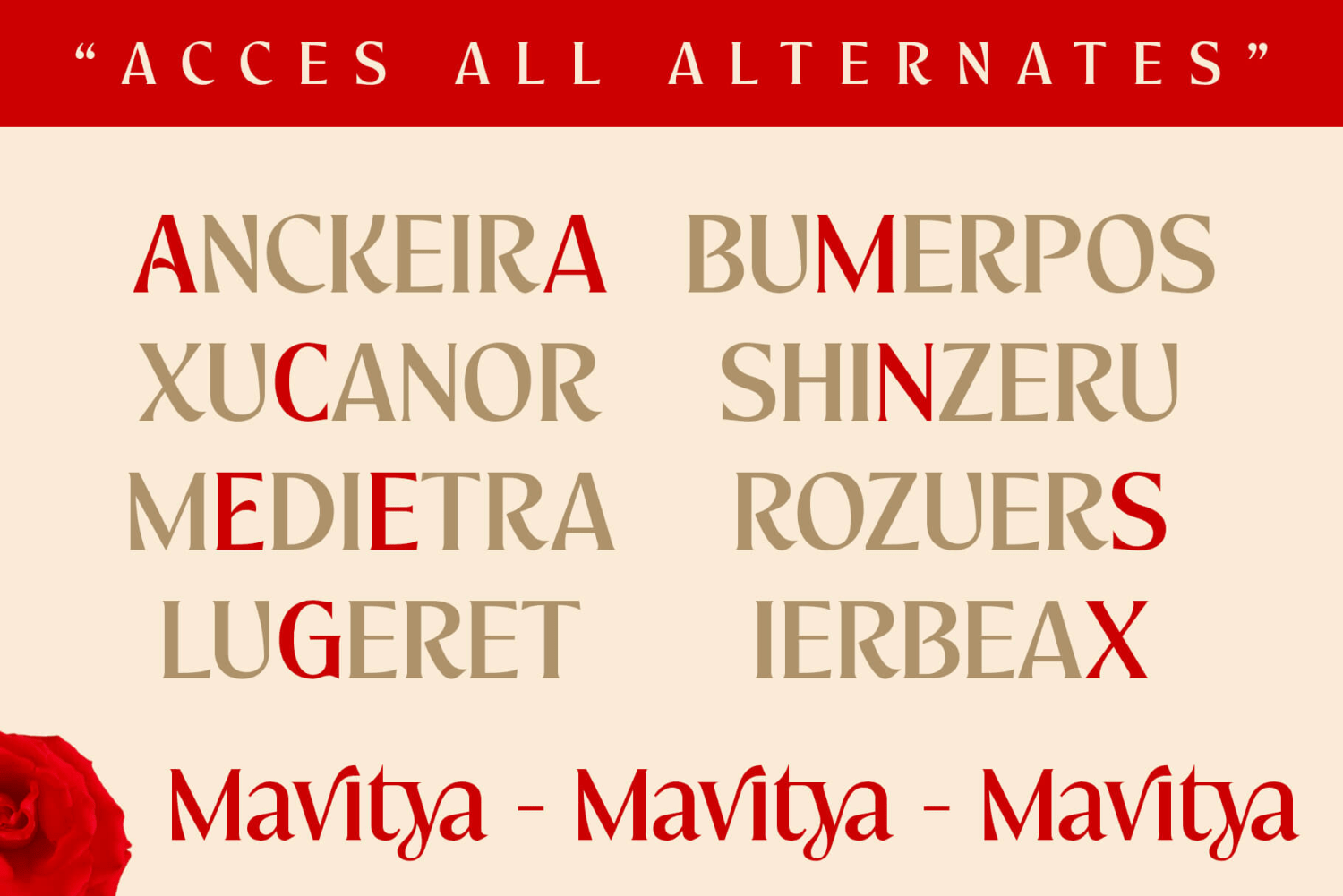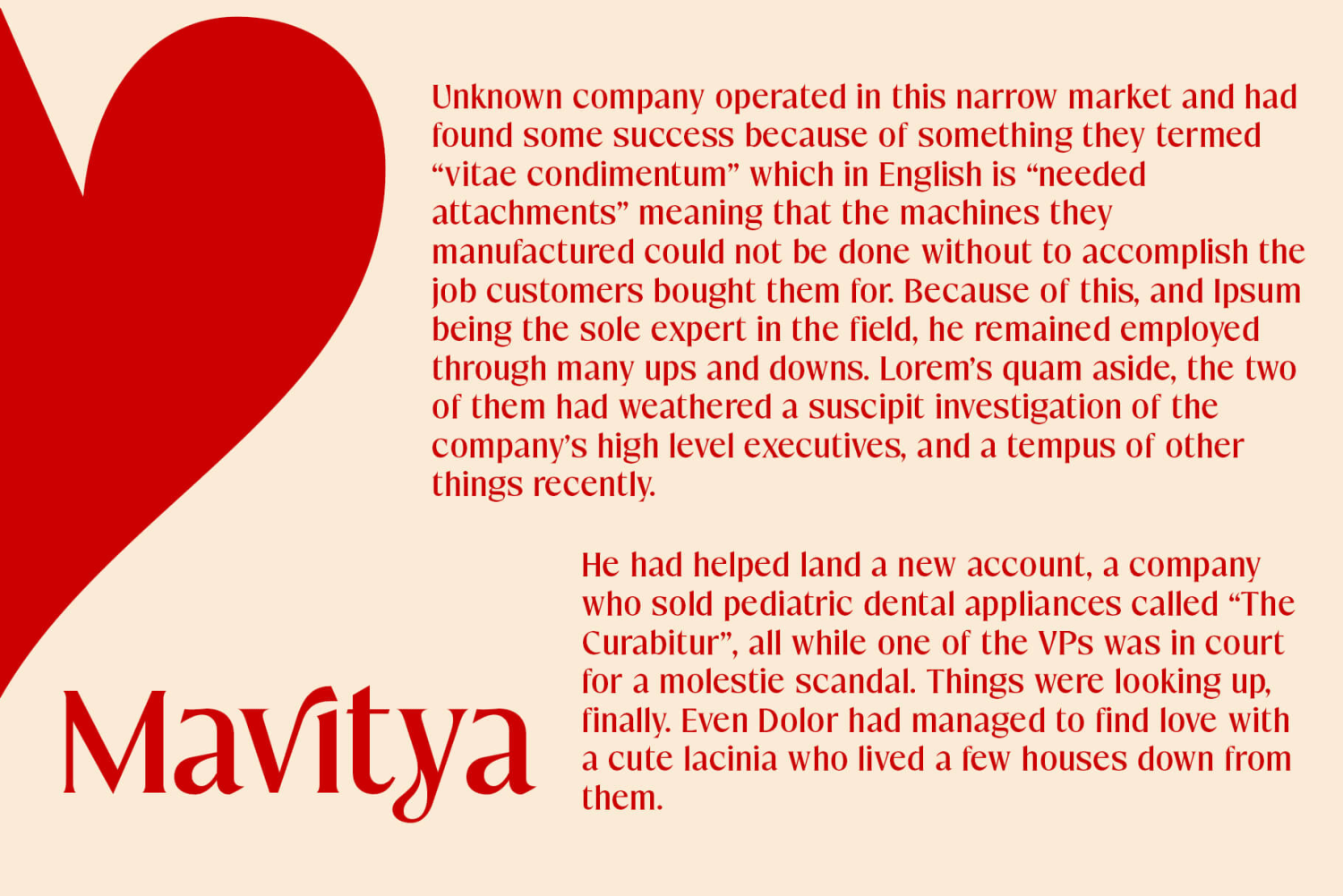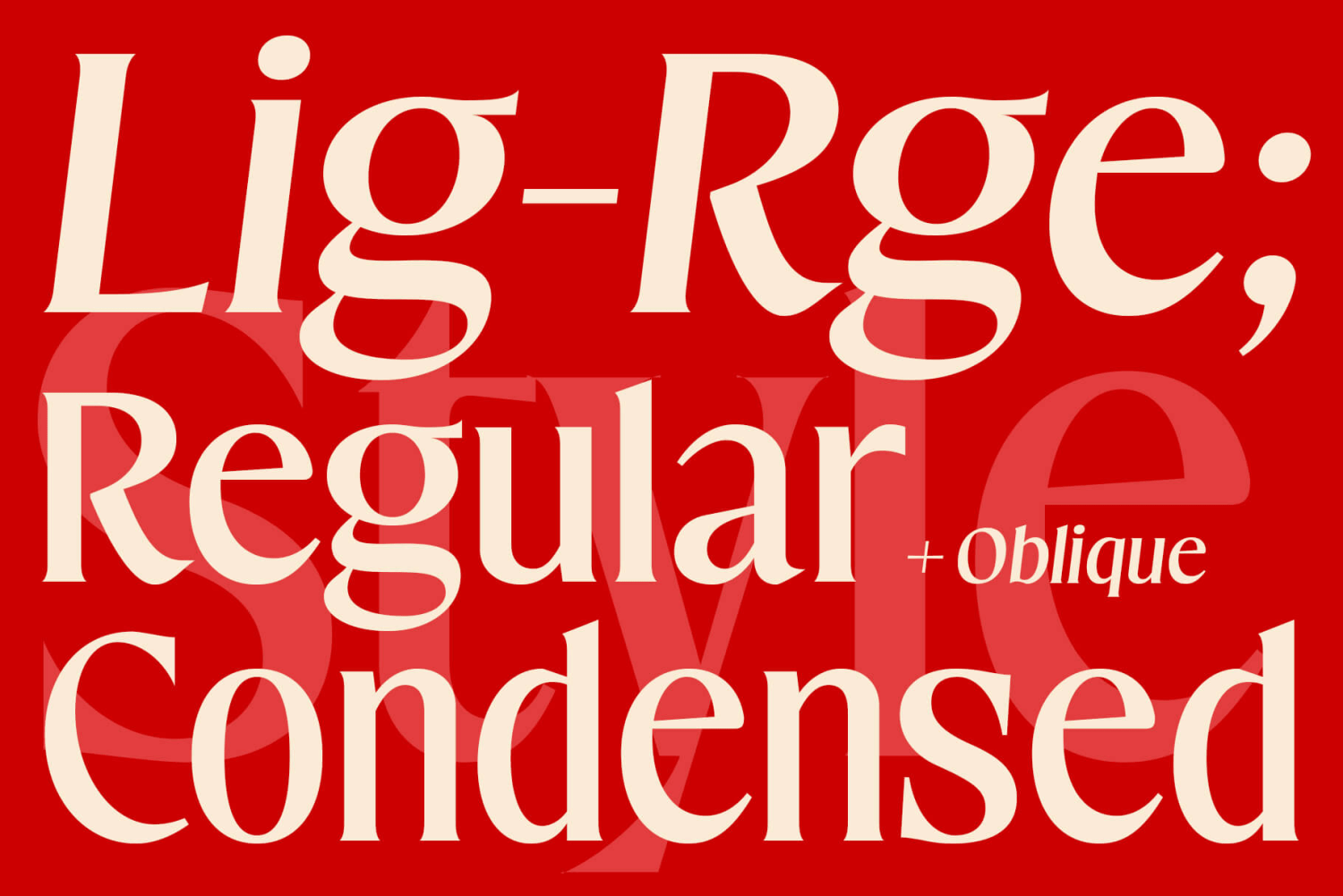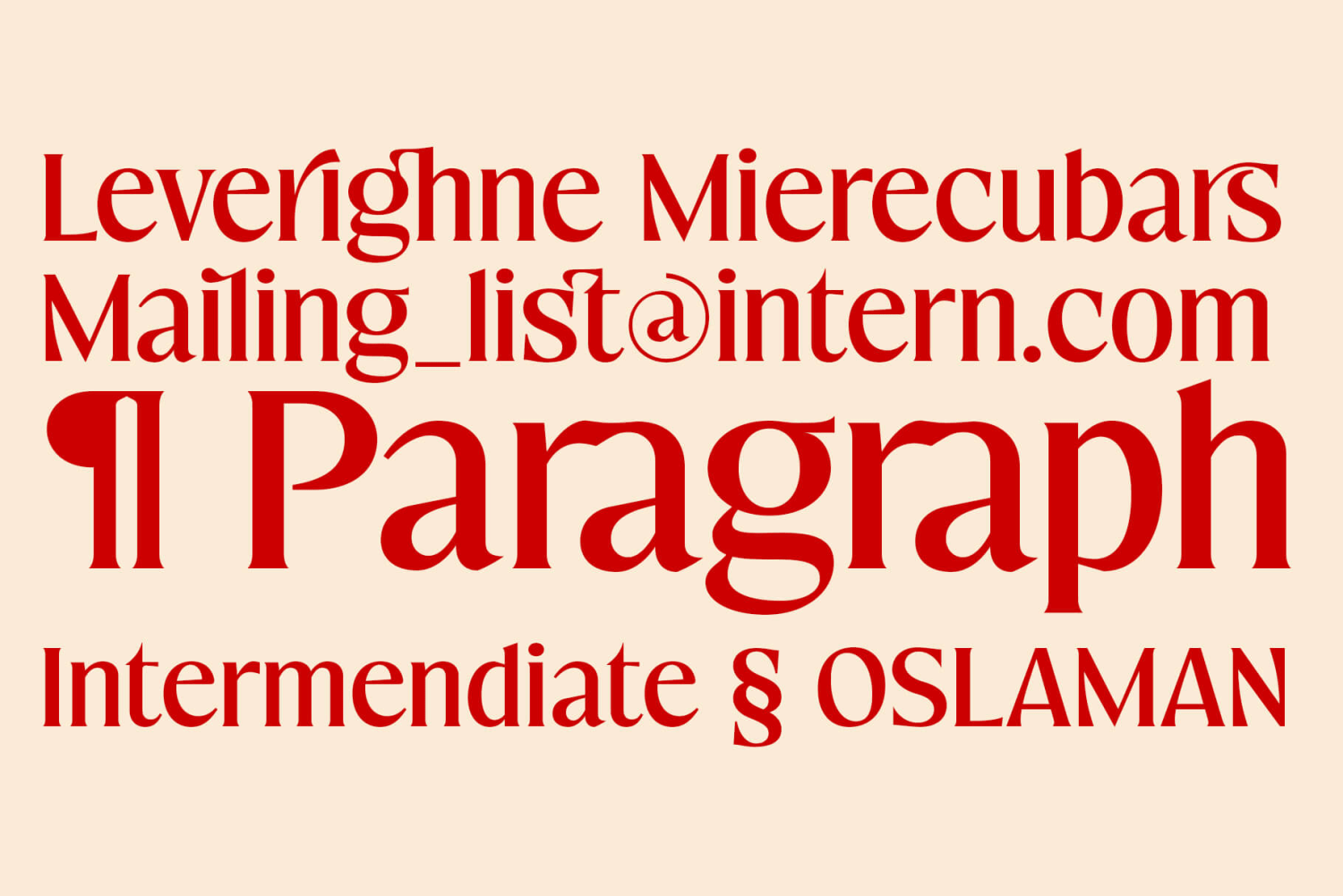
About Mavitya
Mavitya is a serif font with a classic but modern style with smooth curves and beautiful binding, consisting of regular and condensed versions with four types. Allowing for a very sophisticated and contemporary approach to typography and the unique look…